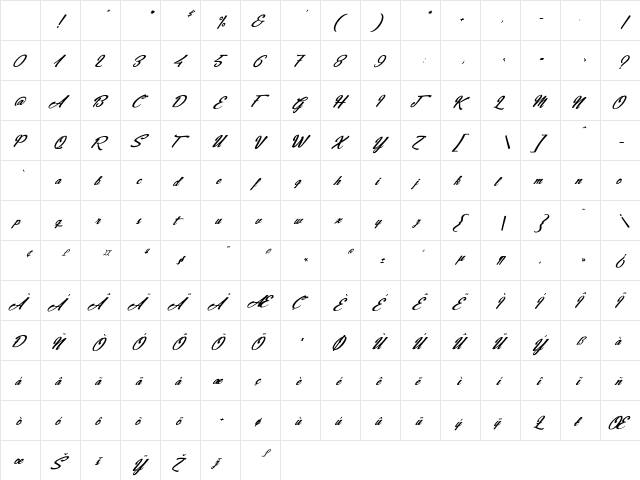
Complete Jeans & Fashions Regular glyph index. Displaying only characters natively supported by Jeans & Fashions Regular font.
Jeans & Fashions is a composed and adaptable typeface that performs quietly and consistently across a wide range of design contexts.